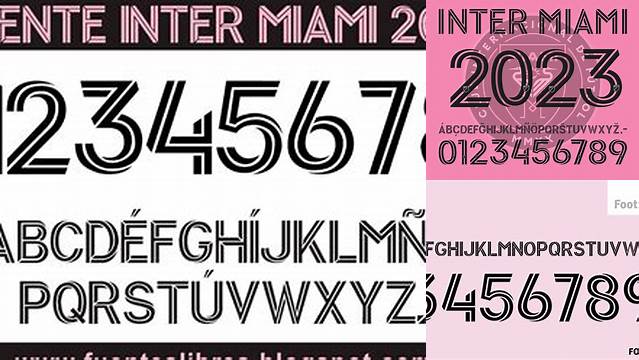
Inter Miami Font: Free Downloads & Alternatives
Are you a die-hard Inter Miami CF fan or a designer looking to capture the team's unique aesthetic? You've probably noticed the sleek and modern font that embodies the club's brand. In this comprehensive guide, we'll dive into everything you need to know about the Inter Miami font, including how to download it for free and use it in your projects. We'll explore the font's history, its characteristics, and where you can find it. Plus, we'll offer tips on using it effectively to create stunning designs that truly represent the Inter Miami spirit.
What is the Inter Miami Font?
The Inter Miami CF font is more than just a typeface; it's a visual representation of the team's identity. This font helps to convey the club's values, aspirations, and connection with its fans. The official Inter Miami font is a custom-designed typeface, meticulously crafted to reflect the team's modern and dynamic image. It's a crucial part of their branding, appearing on everything from jerseys and merchandise to website graphics and marketing materials. This font is characterized by its clean lines, geometric shapes, and a sense of forward motion. These elements combine to create a typeface that is both stylish and easily recognizable. The font plays a significant role in establishing and maintaining the Inter Miami brand identity, ensuring consistency across all visual communications. By using a unique and well-designed font, Inter Miami sets itself apart from other clubs and creates a lasting impression on its audience. The consistent use of this font helps to reinforce brand recognition and loyalty among fans. When designing anything related to Inter Miami, whether it's a fan-made poster or official marketing material, using the correct font is essential for maintaining the brand's integrity and visual appeal. Understanding the importance of the Inter Miami font is the first step in effectively incorporating it into your designs and projects. This font not only represents the team’s visual identity but also embodies the spirit and passion of the club. So, whether you're creating content for social media, designing merchandise, or simply want to show your support, knowing how to access and use the Inter Miami font is key.
Identifying the Inter Miami Font
Identifying the specific font used by Inter Miami is key if you're aiming for an authentic look in your designs. The official Inter Miami font is a custom-designed typeface, meaning it wasn't a font readily available for public download. This exclusivity is a common practice for major sports teams to maintain brand control and uniqueness. However, recognizing its characteristics can help you find similar fonts or alternatives. The Inter Miami font typically features a modern, sans-serif design with clean lines and a geometric structure. You'll notice its sharp angles and a sense of dynamism, reflecting the energy of the sport and the team. Key identifiers include its distinctive letterforms, such as the unique shaping of the 'M' and 'I', which contribute to the font's overall visual impact. If you're trying to identify a font, websites like WhatTheFont! or Font Matcherator can be helpful tools. You can upload an image of the Inter Miami logo or text, and these tools will analyze the font and suggest matches or similar alternatives. While these tools might not pinpoint the exact custom font, they can lead you to fonts that capture the same essence and style. Another approach is to look for font families that share similar characteristics, such as those with a geometric sans-serif style. Fonts like Montserrat, Futura, or Bebas Neue often share design elements that are reminiscent of the Inter Miami font. By understanding these characteristics, you can make informed choices when selecting a font for your project, even if you don't have access to the official typeface. Remember, the goal is to capture the overall feel and aesthetic of the Inter Miami brand, so choosing a font that aligns with its modern and dynamic identity is crucial. This attention to detail ensures that your designs resonate with the team's image and appeal to its fanbase.
Is the Inter Miami Font Available for Free Download?
Now, let's address the big question: Is the Inter Miami font available for free download? The answer, unfortunately, is a bit complex. As mentioned earlier, the official Inter Miami font is a custom-designed typeface, which means it's not typically available for public use without permission. Sports teams often commission unique fonts as part of their branding strategy, making them exclusive to official team materials and merchandise. This exclusivity helps to maintain the brand's identity and prevents unauthorized use. However, this doesn't mean you're completely out of luck if you want to use a similar font in your projects. There are several ways to achieve the Inter Miami aesthetic without directly accessing the official font. One option is to look for font alternatives that closely resemble the Inter Miami typeface. Many fonts share similar characteristics, such as the modern, sans-serif style and geometric shapes, which can help you capture the same feel. Websites like Google Fonts, Adobe Fonts, and MyFonts offer a wide range of typefaces, some of which may be suitable alternatives. You can also explore font marketplaces like Creative Market or Fontspring for both free and paid options. When searching for alternatives, focus on fonts with clean lines, sharp angles, and a contemporary feel. Fonts like Montserrat, Futura, and Bebas Neue, as previously mentioned, are excellent starting points. Another approach is to consider purchasing a similar font if you require it for commercial use or want a closer match. While this involves a financial investment, it ensures you have the necessary licenses and permissions to use the font in your projects. In summary, while the official Inter Miami font may not be freely available, there are numerous alternatives and strategies you can use to achieve a similar look in your designs. By exploring these options, you can create compelling visuals that align with the Inter Miami brand without infringing on any copyright restrictions.
Where to Find Inter Miami Font Alternatives
Since the official Inter Miami font is a custom creation, finding exact matches for free download can be challenging. However, numerous font alternatives can help you achieve a similar aesthetic. These alternatives capture the modern and dynamic feel of the Inter Miami typeface, making them suitable for various design projects. One of the best places to start your search is Google Fonts. This platform offers a vast library of free, open-source fonts that can be used for personal and commercial projects. Fonts like Montserrat and Lato are excellent alternatives, sharing the clean, sans-serif style characteristic of the Inter Miami font. Another valuable resource is Adobe Fonts, which is included with an Adobe Creative Cloud subscription. Adobe Fonts provides access to thousands of high-quality typefaces, including many modern sans-serif options. Fonts such as Bebas Neue and Helvetica Now can closely resemble the Inter Miami font's geometric and contemporary design. For those willing to invest in a premium font, MyFonts and Fontspring are excellent marketplaces. These platforms offer a wide range of commercial fonts, some of which may be closer matches to the Inter Miami typeface. While they come with a price tag, purchasing a font ensures you have the necessary licenses for commercial use and can often provide a more polished and professional look. In addition to these major font platforms, you can also explore websites like Creative Market and Envato Elements. These sites offer a variety of fonts, graphics, and design assets, often with flexible licensing options. Keep an eye out for bundled deals and promotions, which can make premium fonts more affordable. When searching for alternatives, it's helpful to focus on keywords such as "geometric sans-serif," "modern typeface," and "sporty font." These terms can help you narrow down your search and find fonts that align with the Inter Miami brand identity. Remember, the goal is to find a font that captures the essence of the Inter Miami typeface, so don't be afraid to experiment with different options until you find the perfect fit. By exploring these resources and using the right search terms, you can discover excellent font alternatives for your Inter Miami-related projects.
Tips for Using Inter Miami Font in Your Designs
Using the Inter Miami font or its alternatives effectively can significantly enhance your designs and capture the team's aesthetic. Here are some tips to help you make the most of these typefaces. First and foremost, maintain consistency. Whether you're using the official font (if you have permission) or a similar alternative, ensure you use it consistently across all your materials. This consistency helps reinforce the Inter Miami brand identity and creates a cohesive visual experience. Use the font for headings, subheadings, and body text in a consistent manner to maintain a professional and polished look. Consider the font's readability. While the Inter Miami font and its alternatives are stylish, readability is crucial. Choose font sizes and weights that ensure your text is easy to read, especially for smaller text blocks. Avoid using overly decorative fonts for body text, as they can strain the reader's eyes. Stick to cleaner, more legible fonts for longer passages. Pay attention to spacing and kerning. Proper spacing between letters and lines can significantly impact the readability and visual appeal of your text. Adjust the kerning (the space between individual letters) and leading (the space between lines) to create a balanced and visually pleasing layout. Many design software programs offer tools to fine-tune these settings. Use color effectively. The Inter Miami brand often incorporates a distinctive color palette, including pink, black, and white. When using the font, consider how it interacts with these colors. Ensure there's sufficient contrast between the text and background to make the text stand out. For example, white text on a black background or vice versa can create a striking visual effect. Incorporate the font into your overall design concept. The font should complement the other elements of your design, such as images, logos, and graphics. Consider the overall tone and message you want to convey, and choose a font that aligns with that. For Inter Miami-related designs, aim for a modern, dynamic, and sporty feel. Experiment with different font weights and styles. Many fonts come in various weights and styles, such as regular, bold, italic, and condensed. Experimenting with these variations can add visual interest and hierarchy to your designs. Use bold fonts for headings and subheadings to make them stand out, and use regular fonts for body text. By following these tips, you can effectively use the Inter Miami font or its alternatives to create visually appealing and impactful designs that resonate with the team's brand and fans.
In conclusion, while the official Inter Miami font is a custom creation and not readily available for free download, there are numerous font alternatives that can help you capture the team's unique aesthetic. By identifying the characteristics of the Inter Miami font – its modern, sans-serif design, and geometric shapes – you can effectively search for similar typefaces. Platforms like Google Fonts, Adobe Fonts, MyFonts, and Fontspring offer a wide range of options, from free open-source fonts to premium commercial typefaces. Remember to focus on fonts that share the clean lines, sharp angles, and contemporary feel of the Inter Miami font. Once you've found suitable alternatives, the download and installation process is straightforward, typically involving extracting font files from a ZIP archive and installing them on your operating system. Whether you're using Windows or macOS, the process is generally quick and easy. With the font installed, you can start incorporating it into your designs. To use the Inter Miami font or its alternatives effectively, maintain consistency across all your materials, ensuring the font complements your overall design concept. Proper spacing and kerning are essential for readability, and using color effectively can enhance the font's visual impact. Experiment with different font weights and styles to add visual interest and hierarchy to your designs. By following these tips, you can create compelling visuals that align with the Inter Miami brand and resonate with its fans. Whether you're designing social media graphics, merchandise, or fan-made posters, the right font can make a significant difference in conveying the team's spirit and identity. So, explore the alternatives, download your favorites, and start creating designs that showcase your passion for Inter Miami CF. Ultimately, the goal is to capture the essence of the team's brand, and the right font is a crucial element in achieving that. By understanding the nuances of typography and applying these tips, you can create visually stunning and impactful designs that celebrate Inter Miami's unique identity.